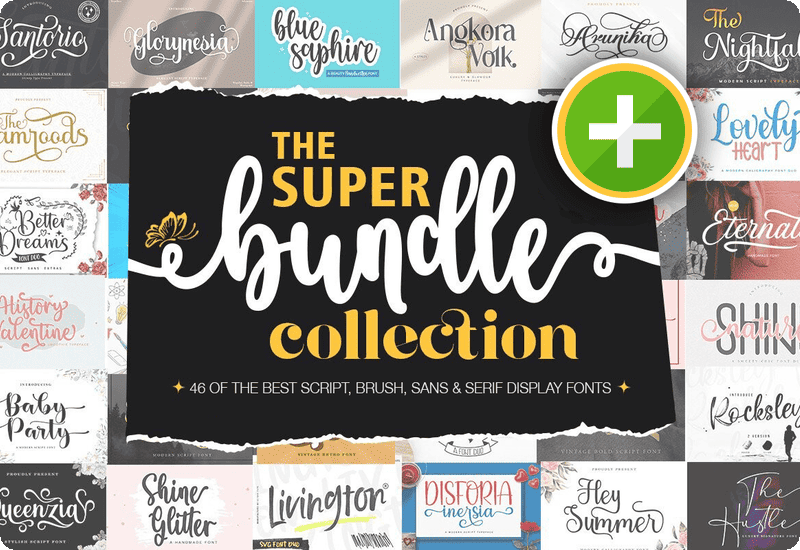
Unlock Limitless Creativity with 46 Premium Fonts
Finding the right fonts can make all the difference in crafting stunning designs, branding materials, and digital projects. The Super Font Collection Bundle brings together 46 premium fonts, carefully curated to provide a versatile and high-quality selection for designers, crafters, and businesses. Whether you’re working on logos, invitations, posters, packaging, digital content, or custom crafts, this bundle has a font style to fit every need.
What’s Included in the Super Font Collection?
✔ 46 Premium Fonts – A diverse range of script, serif, handwritten, and display fonts.
A Font for Every Creative Project
The Super Font Collection Bundle offers a wide variety of styles, ensuring that you have the perfect typeface for any project. From elegant script fonts for wedding invitations to bold display fonts for branding and advertising, this bundle has everything you need.
Featured Fonts:
✔ Shine Nature – A beautiful handwritten script font with a natural flow.
✔ Eternals – A sophisticated and stylish handwritten font for luxury branding.
✔ Better Dreams – A dreamy, soft script perfect for invitations and stationery.
✔ Blue Sapphire – A sleek and modern serif font for elegant projects.
✔ Tropical Nature – A fun and playful display font, ideal for summer themes.
✔ Abigail – A timeless script font for artistic and handcrafted designs.
46 Premium Fonts included in the The Super Font Collection Bundle:
- Shine Nature Script & Handwritten Font
- Eternals Script & Handwritten Font
- The Nightfall Script & Handwritten Font
- Brigtham Skript-Schriftarten Schriftart
- Better Dreams Script & Handwritten Font
- Baby Party Script Fonts Font
- Santorio Script & Handwritten Font
- Baby Tokyo Script & Handwritten Font
- Brilliance Fontes Script Fonte
- Lovely Heart Fontes Script Fonte
- Feronica Script & Handwritten Font
- Shine Glitter Fontes Script Fonte
- The Nightfall Script & Handwritten Font
- Blue Saphire Fuentes Serif Fuente
- The Jamroods Script & Handwritten Font
- Disforia Inersia Script & Handwritten Font
- Mestora Serif-Schriftarten Schriftart
- Queenzia Script & Handwritten Font
- Rocksley Script & Handwritten Font
- Lady Rose Fontes Script Fonte
- Selenophile Sans Serif Font
- Authemia Script & Handwritten Font
- Creattion Fontes Script Fonte
- Abigail Script & Handwritten Font
- Belycha Script & Handwritten Font
- Breylone Skript-Schriftarten Schriftart
- Aleycha Skript-Schriftarten Schriftart
- Quantum Quill Serif Font
- Gattela Script & Handwritten Font
- Hey Summer Fontes Script Fonte
- Arunika Script & Handwritten Font
- Tropical Nature Display Font
- Hello Billy Script & Handwritten Font
- Astrone Script & Handwritten Font
- Glorynesia Script & Handwritten Font
- Portgas Display Display-Schriftarten Schriftart
- The Hustle Fontes Script Fonte
- Stelashild Script & Handwritten Font
- Livington Duo Fontes Script Fonte
- Sanctum Island Fontes Script Fonte
- The Manthe Font Corsivi Font
- History Valentine Skript-Schriftarten Schriftart
- Black Bone Skript-Schriftarten Schriftart
- Kellyna Fontes Script Fonte
- Arphies Script & Handwritten Font
- Neilston Script & Handwritten Font
Each font in this bundle is meticulously designed to provide smooth curves, crisp lines, and excellent readability, ensuring a professional finish for your projects.
Perfect for Designers, Crafters, and Businesses